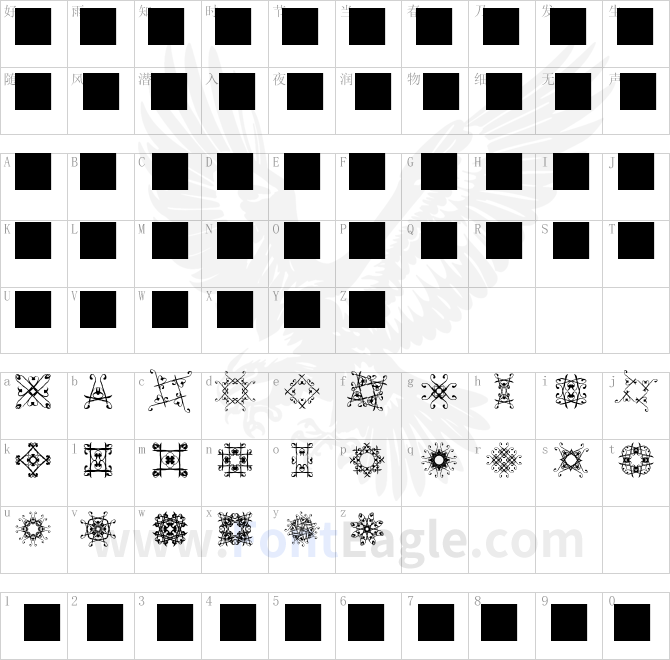
SVGfont-1 is a great font, widely used in graphic design, single-page menu design, poster design and other fields, and is deeply loved by designers.SVGfont-1 download.